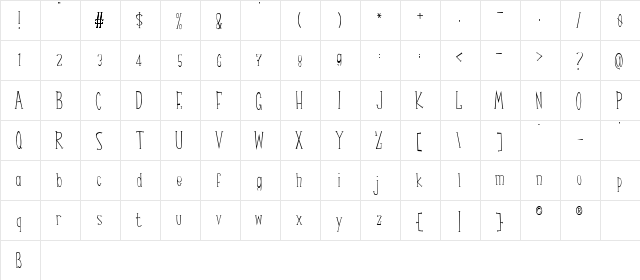
it's martini time! Regular
Design Context for it's martini time! Typeface
it's martini time! offers clean, dependable letterforms without strong stylistic allegiance, making it a practical choice for designers who need flexibility.